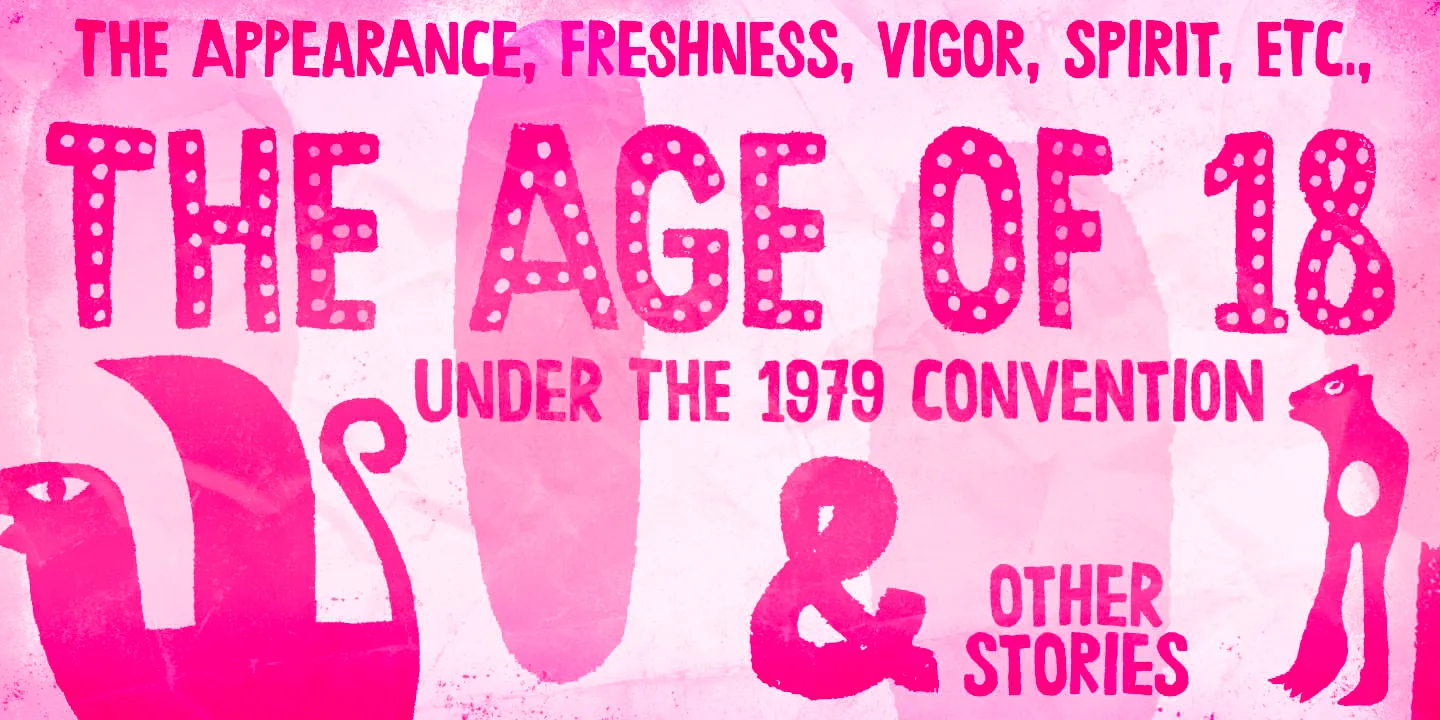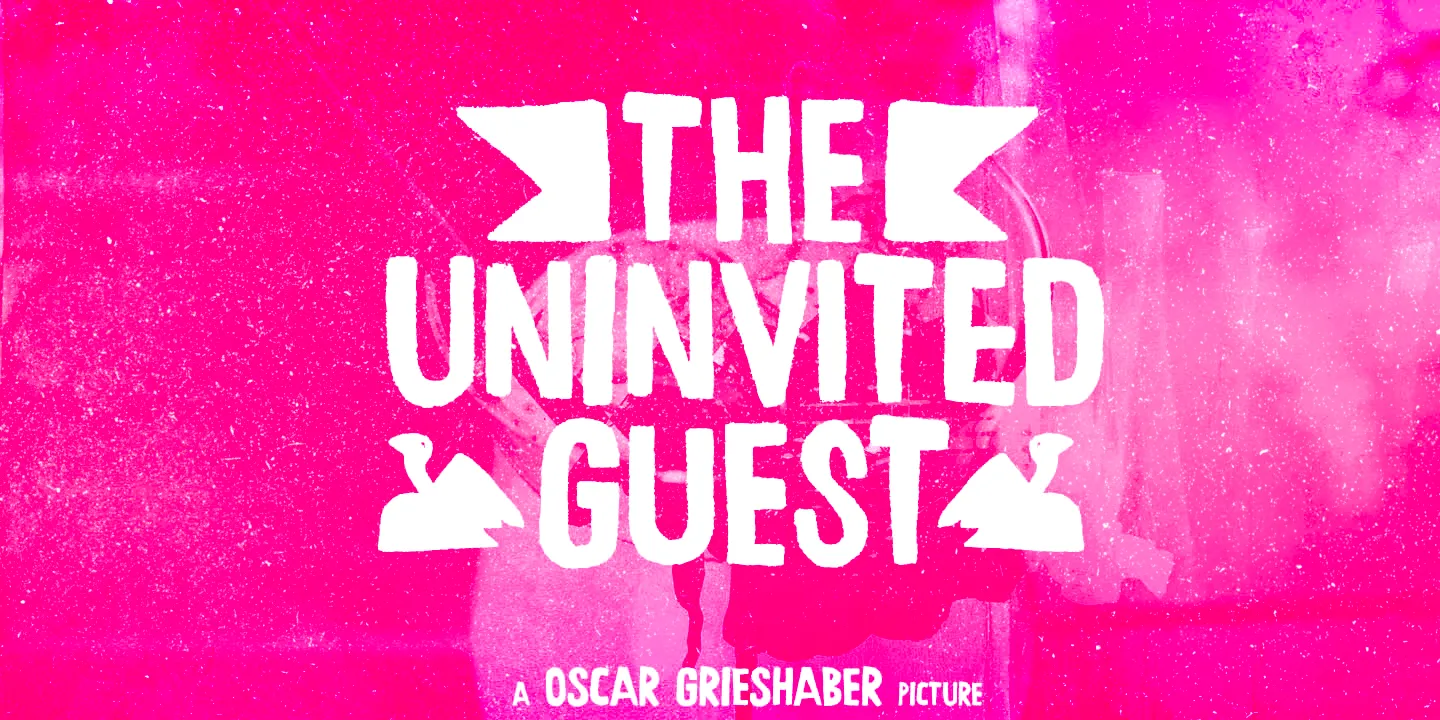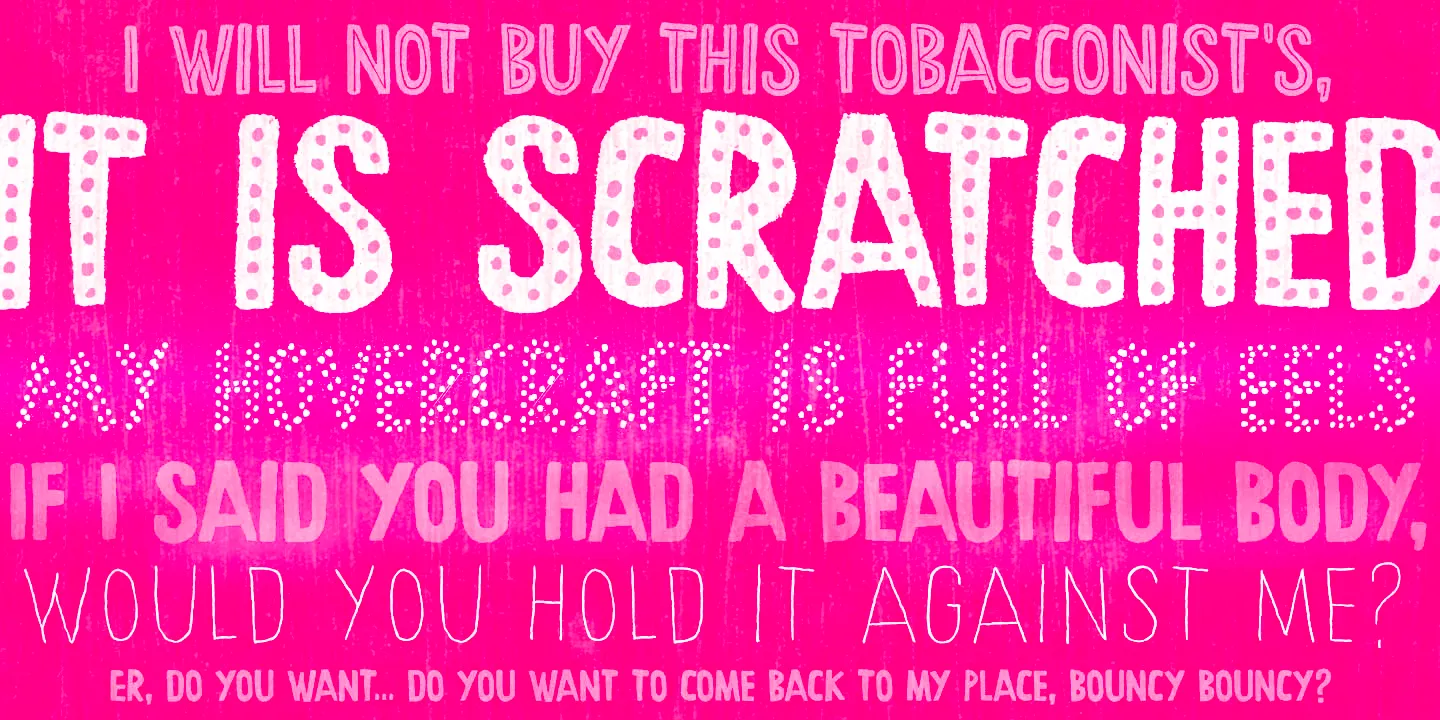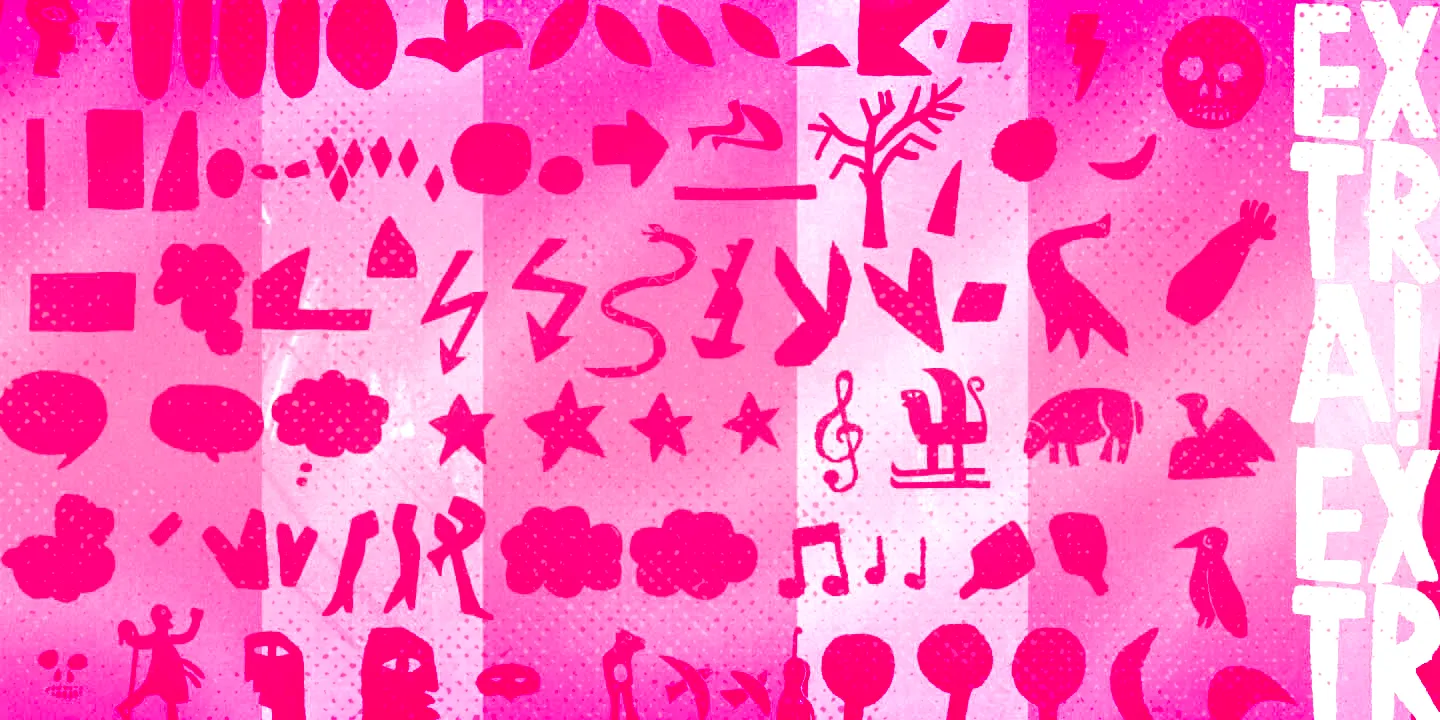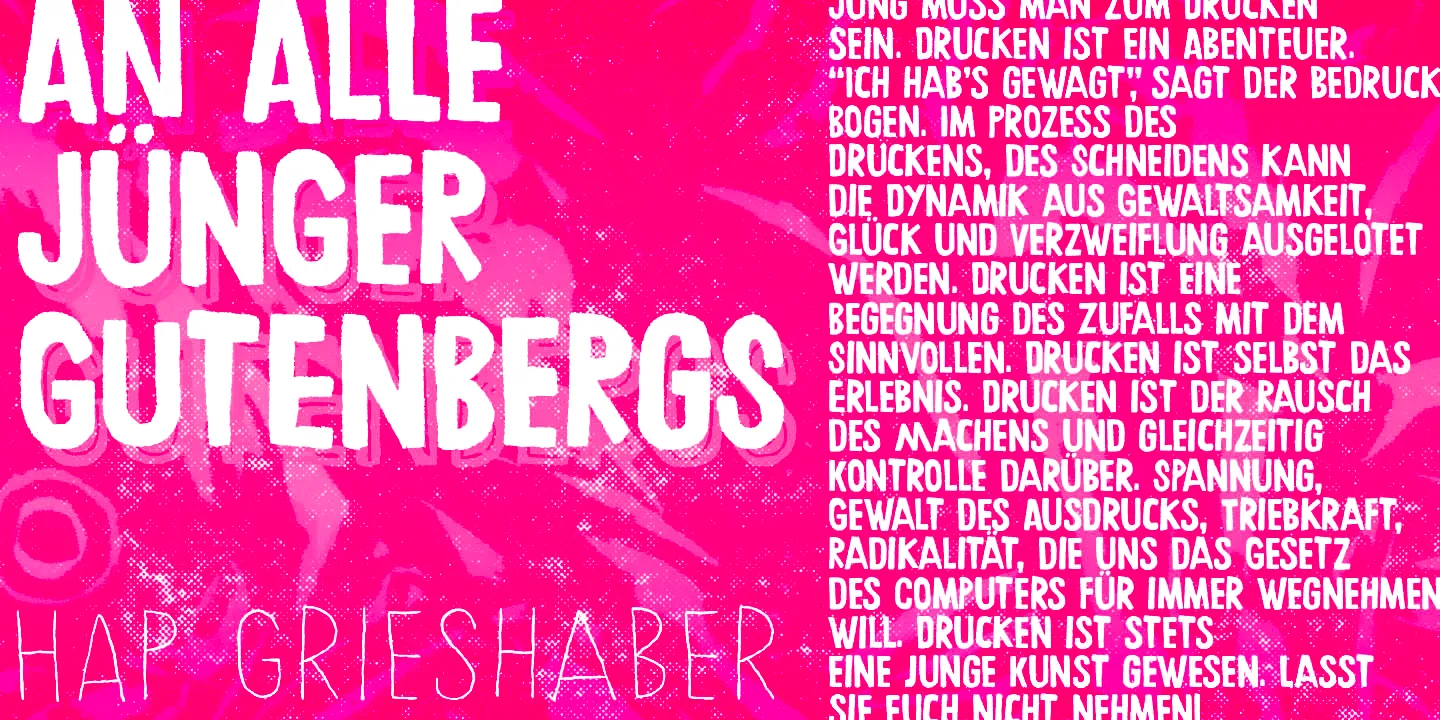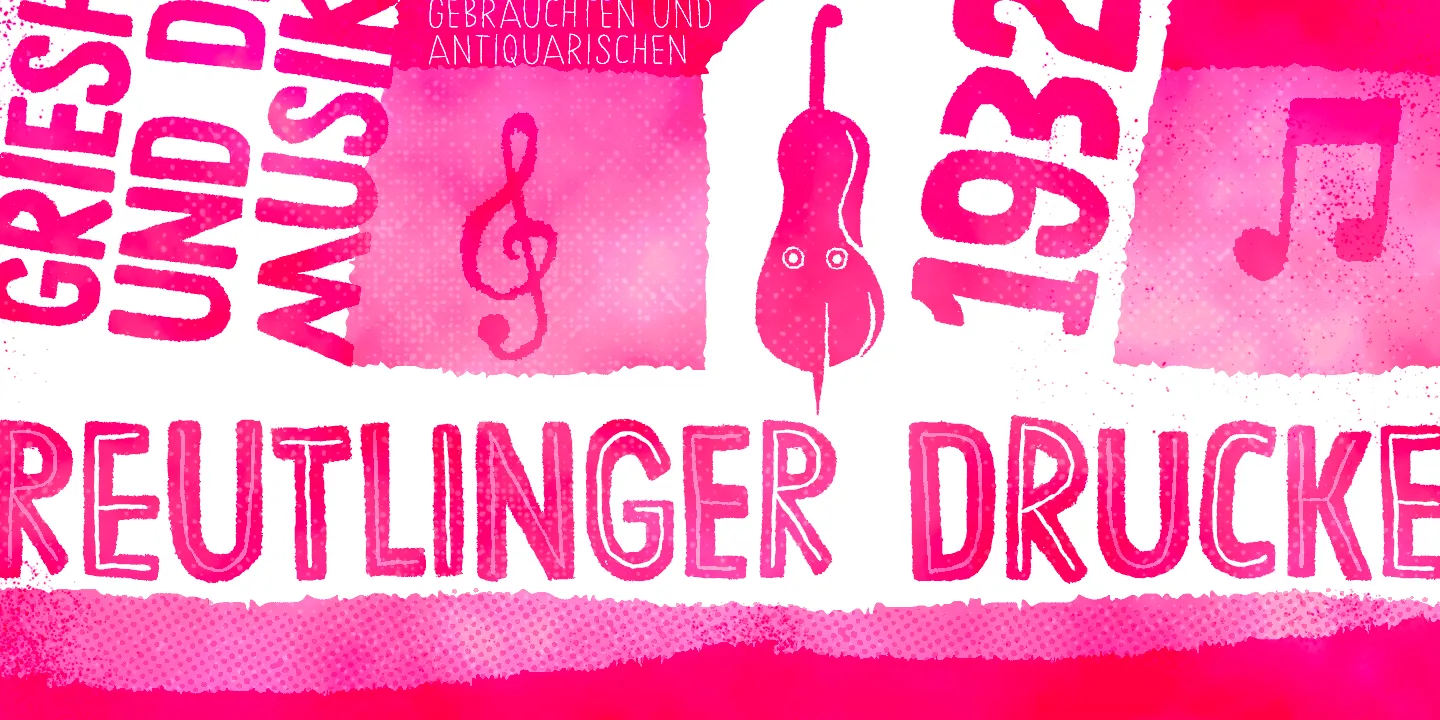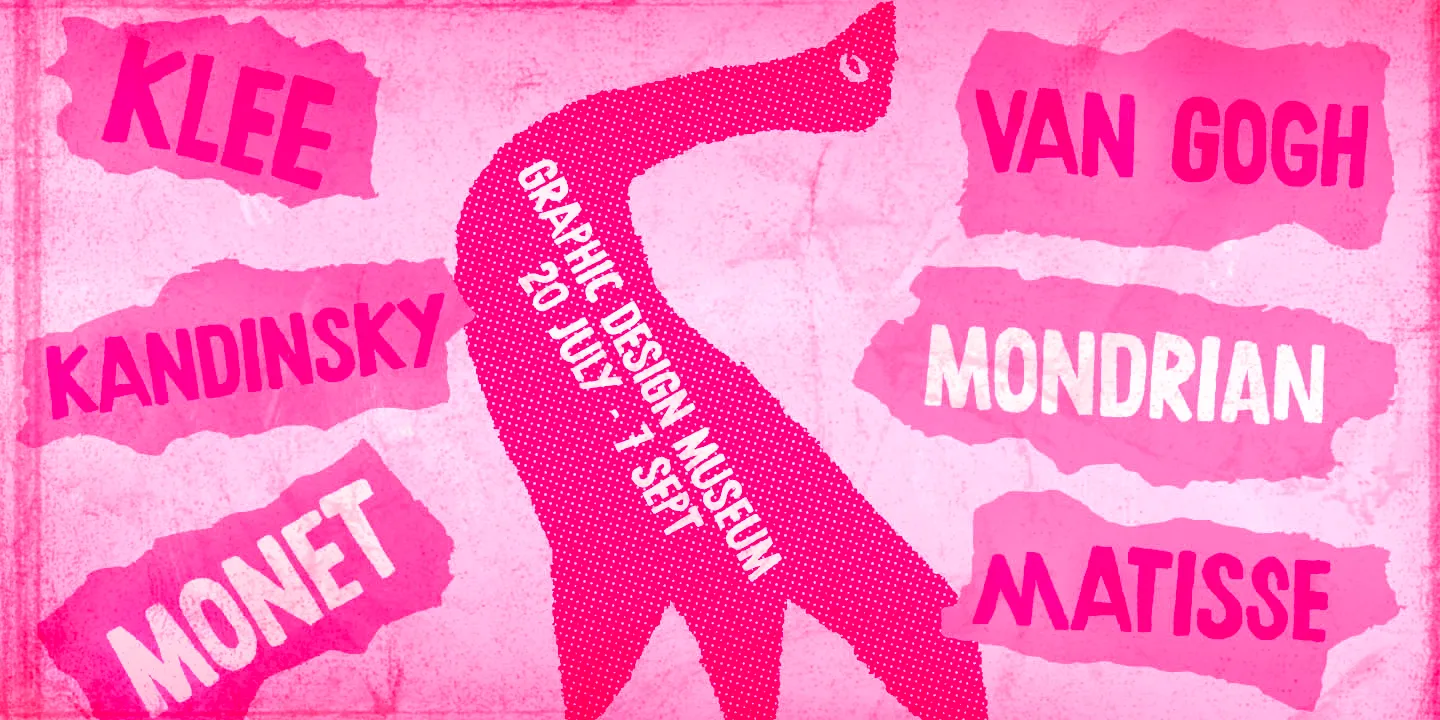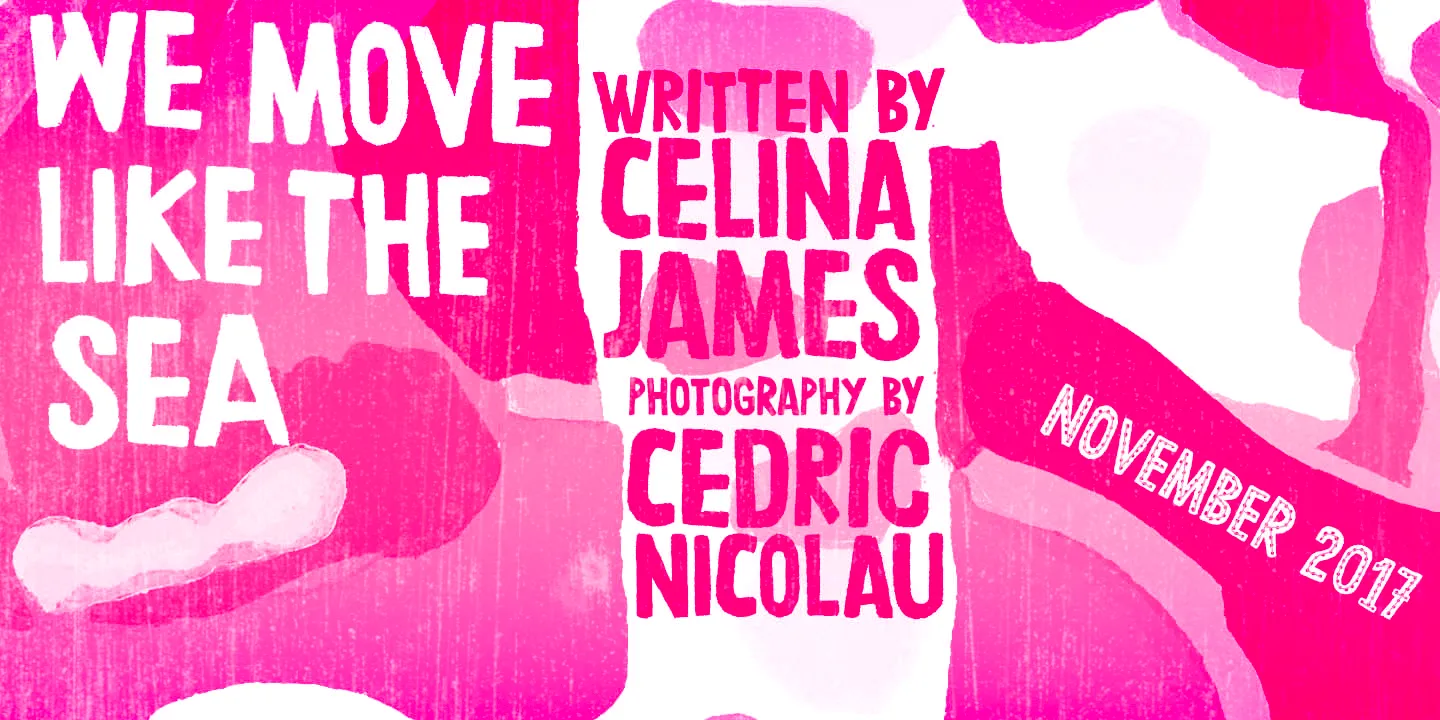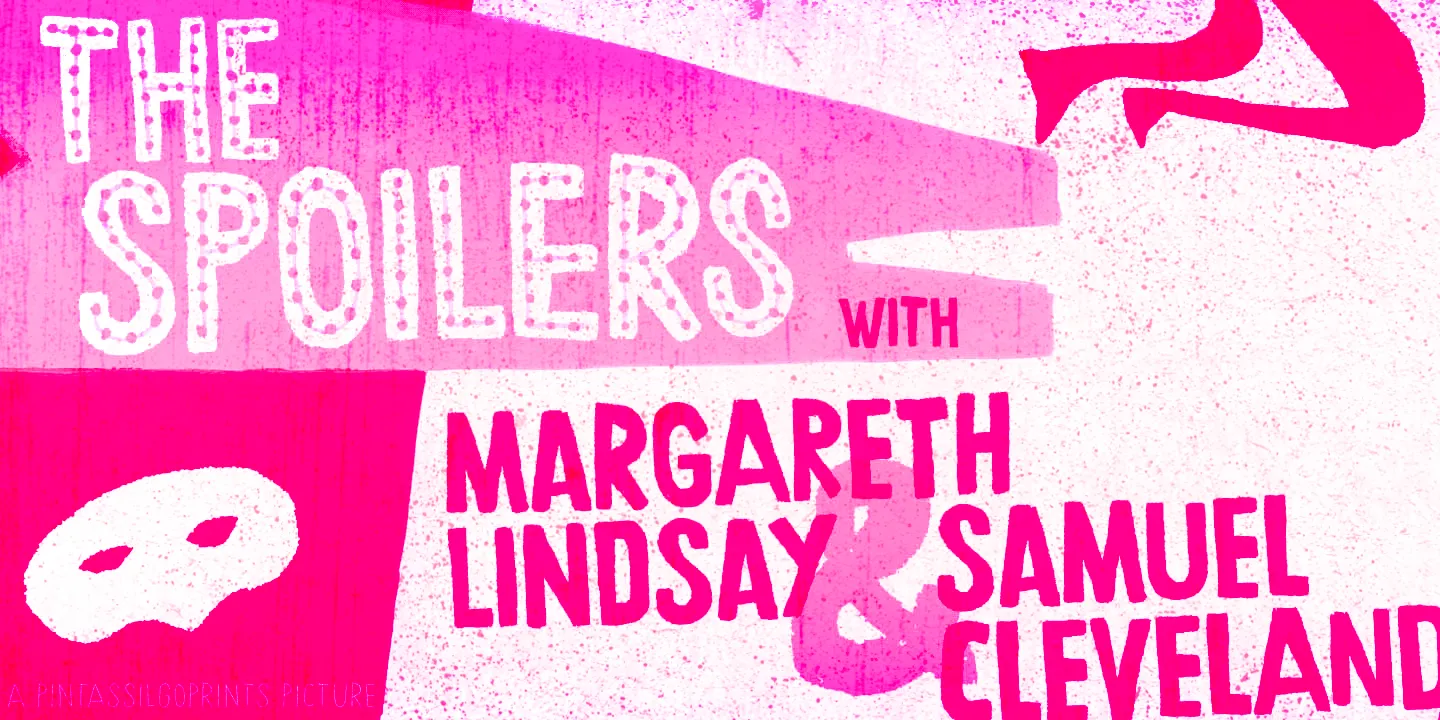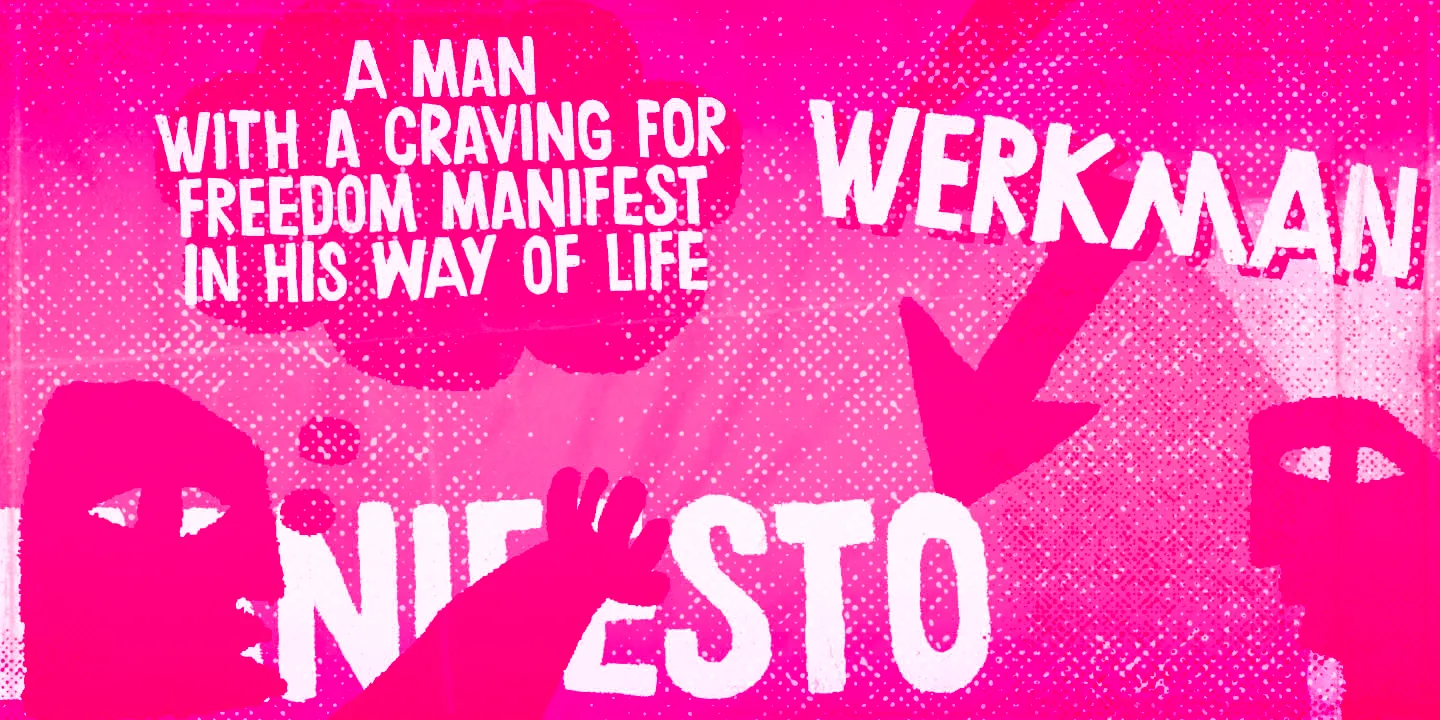
Chronic Font Family
Chronic
Chronic is a decorative, hand-lettered sans serif. A friendly all-cap design initially inspired by the art of HAP Grieshaber but includes some elements by Willem Sandberg, too. Two artists who lived through two world wars, struggled for freedom, and consistently manifested their love of liberty with words, works, and actions. Black, Dots, Dotted, Inline, Line, and Regular, plus Extras, too! This font family is perfect for packaging, book jackets, and posters!